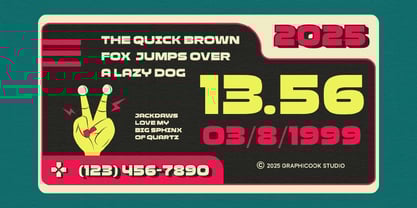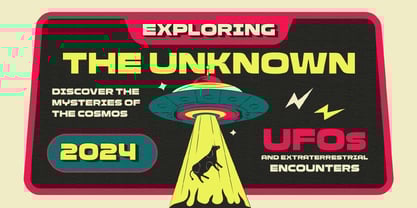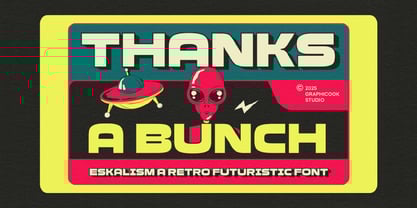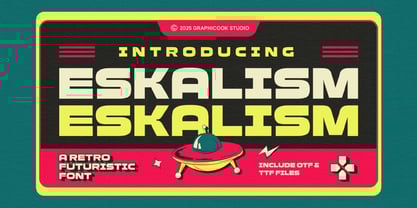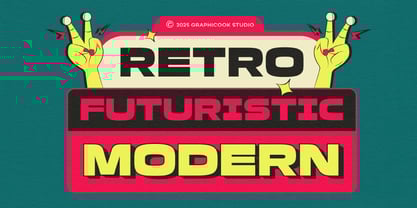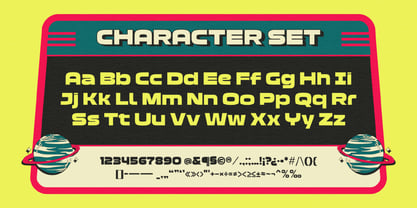
Cook Eskalism
by Graphicook Studio
The Cook Eskalism Font Family was designed by Gumilar Febriansyah and published by Graphicook Studio. Cook Eskalism contains 1 styles. More about this family
Eskalism is an experimental sans-serif font with a unique retro-futuristic vibe. Its versatility makes it perfect for any design project. It is perfect for headlines, logotypes, magazines, packaging, quotes, movies, games, cover albums, book covers, and flyers, it's a perfect solution for creating eye-catching designs that stand out in any context.
Designers: Gumilar Febriansyah
Foundry: Graphicook Studio